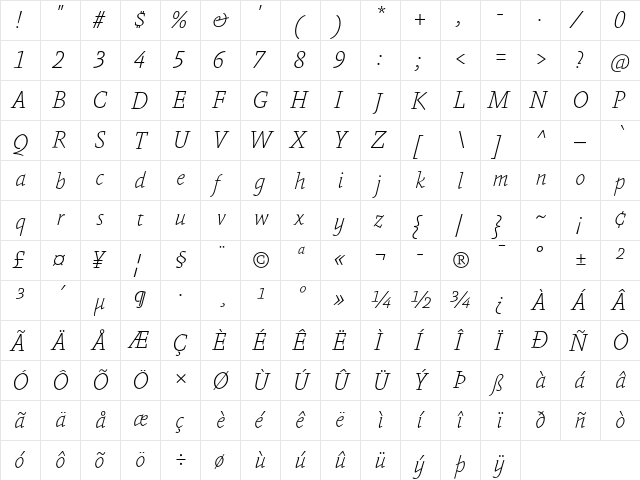
Absara TF Thin Italic Font Preview
Design Context for Absara TF Thin Typeface
Absara TF Thin is a composed and adaptable typeface that performs quietly and consistently across a wide range of design contexts. Its italic angle brings a sense of urgency and motion to the letterforms. Its slender proportions lend an understated elegance to any composition.
Pro Tip: Try Absara TF Thin for annotation and caption copy alongside an upright companion — the contrast in angle creates a dynamic but ordered typographic system.